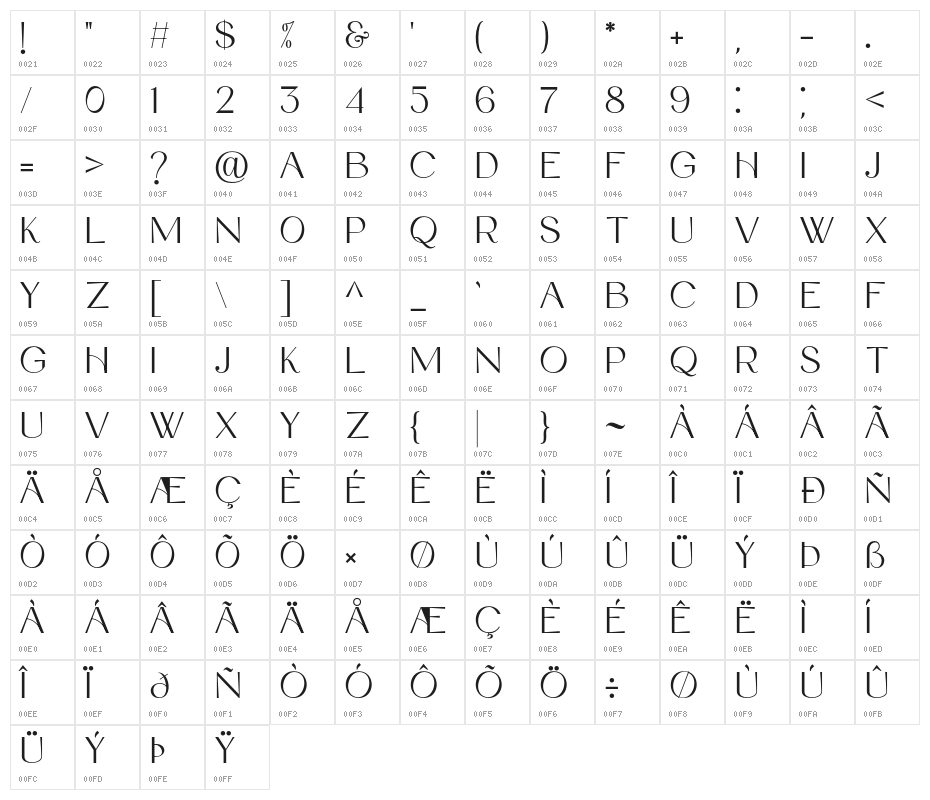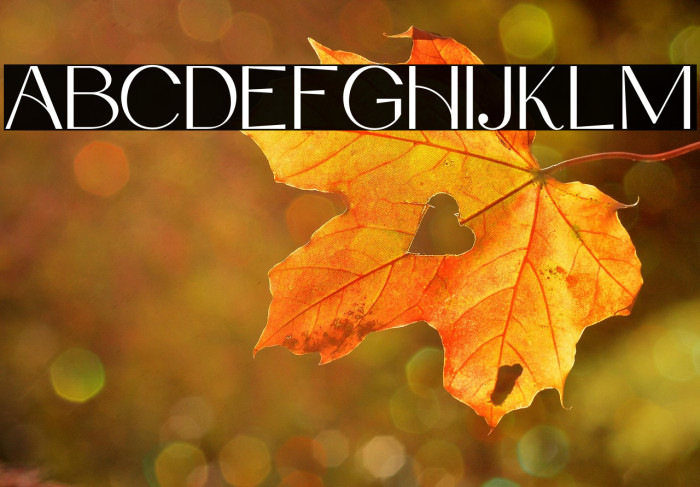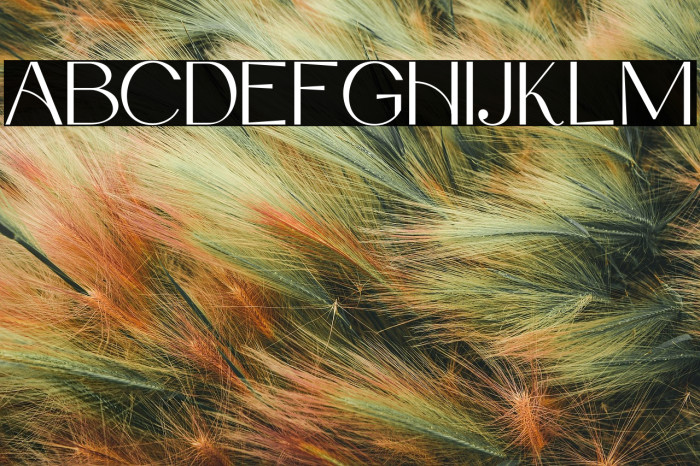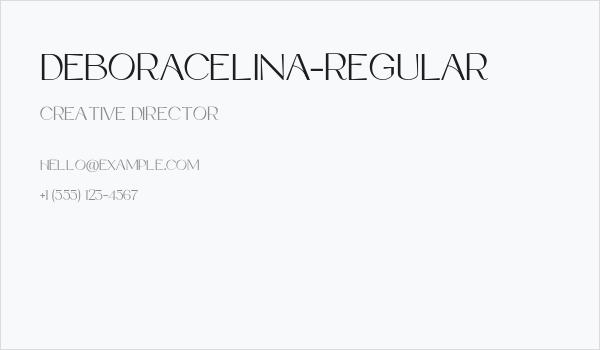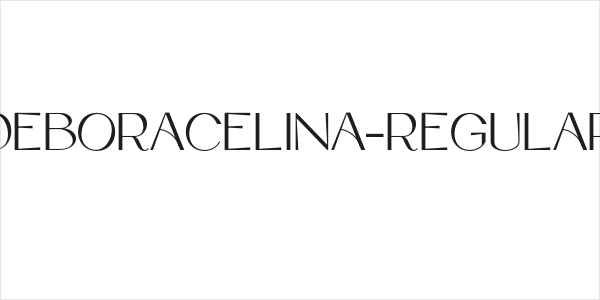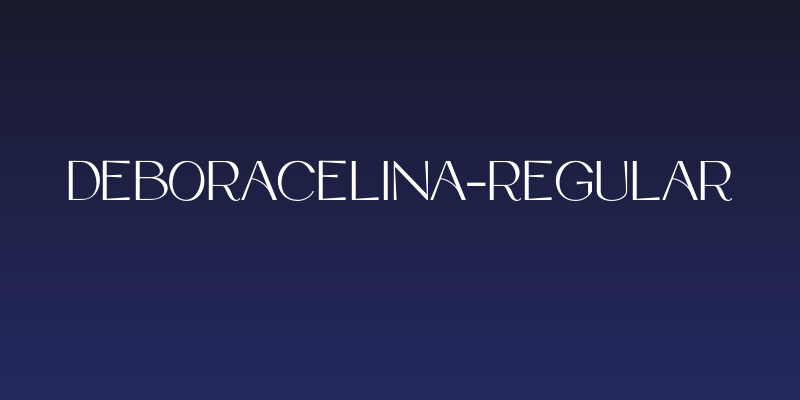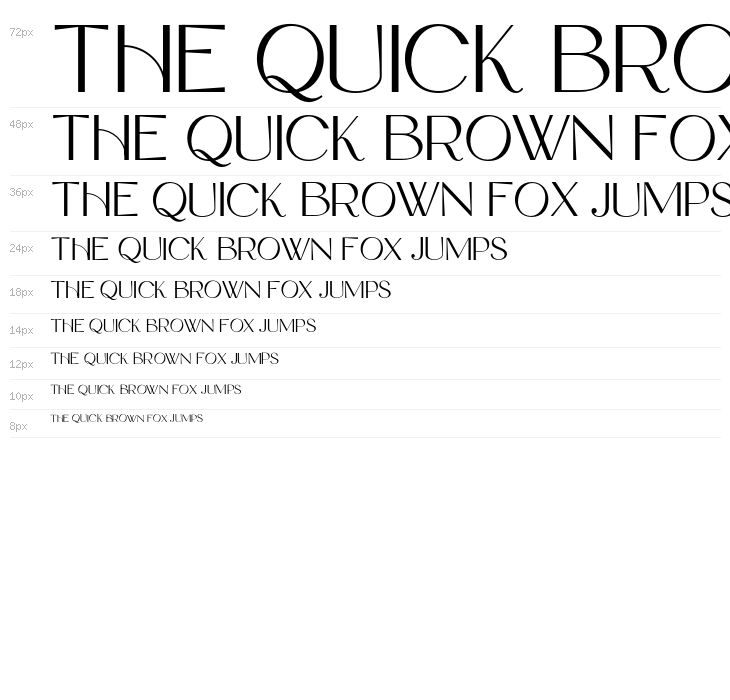
DeboraCelina-Regular Font
DeboraCelina-Regular Description
A modern, geometric sans-serif typeface with high contrast between thick and thin strokes, featuring unique, stylized letterforms and elegant curves, especially noticeable in characters like Q, G, and ampersand.
| Use Case | Headlines, Logos, Posters, Editorial design |
| Proposed Projects | Fashion branding, editorial headlines, luxury packaging, posters, logos. |